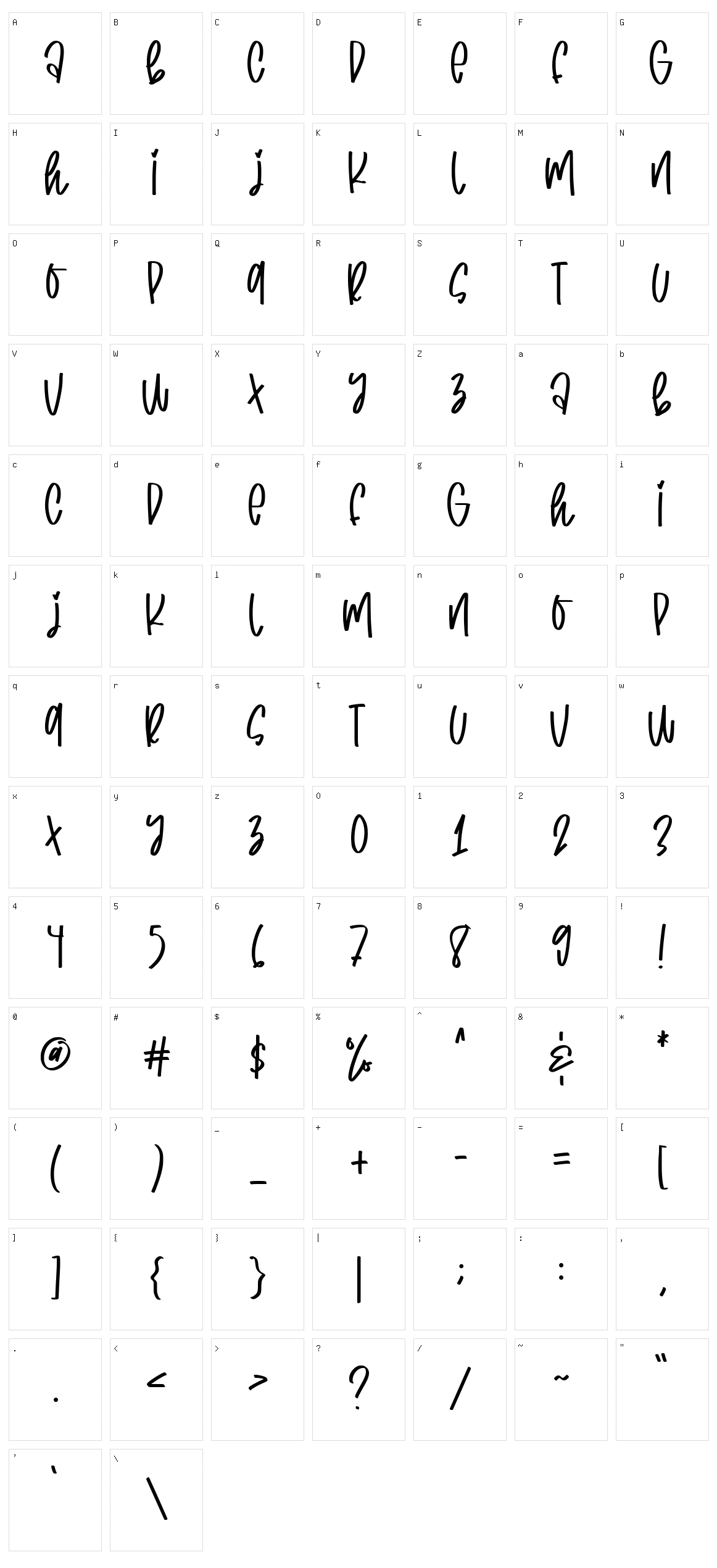
CHEERFUL GIRL
- quirk handwritten font -
It is great for quotes, card, banner, book, cutting, silhouette, social media content and anything of craft project.